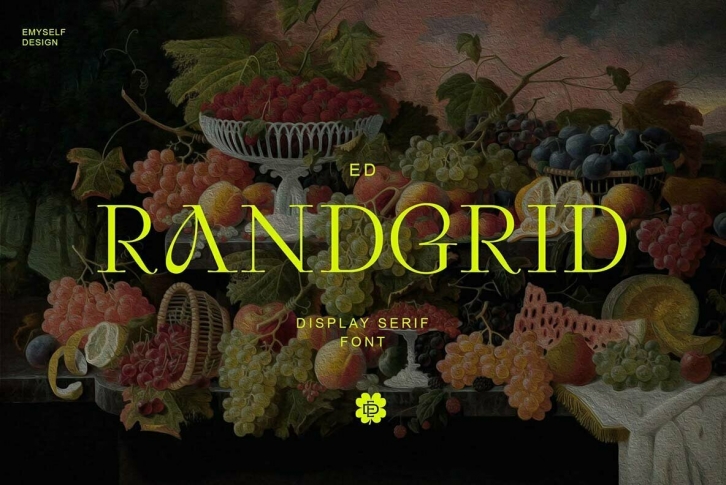
ED Randgrid is an elegant and unique display serif font. It has a rounded font tip that adds a modern and casual impression, and is equipped with alternative characters to make it look more attractive and this font is also easy to combine with other fonts.
ED Randgrid is equipped with ligatures, alternative characters, and supports multiple languages. and this font is perfect for your design needs such as branding, poster design, books, fashion, social media design, logos, app , etc.